Manrope
Manrope has confidently established its presence in the typeface community, boasting a website that overshadows those of many established startups. As a variable font, it offers an array of weights within a single file. I have a soft spot for Manrope—its complete ligature set and full multilingual support are impressive. It’s a jack-of-all-trades, promoting itself as semi-condensed, semi-rounded, and hybrid in various other aspects.
Gidole
The beloved DIN, appreciated for its versatility and elegant simplicity, comes at a steep price. Enter Gidole, the open-source sibling of DIN. Its resemblance is uncanny, with only minor differences perceptible to the most discerning eyes. Before opting for DIN, give Gidole a try—it comes with a passionate support community on Github too.
Inter
Inter may have surged in popularity, yet it’s worth mentioning for its reliably solid updates and excellent open-source community engagement. If you’re after something with a bit more flair than Helvetica and more consistent than San Francisco, Inter fits the bill. Now readily available on Google Fonts, it features over 2500 glyphs, diverse styles, and multiple features.
Overpass
Overpass, a creation of Delvefonts financed by RedHat, was fashioned as a substitute for the widely-used Interstate and Highway Gothic fonts. Its extensive style and ligature variety have led to its adoption by major e-commerce platforms, not to mention there’s a monospace version available. Aside from Google Fonts, you can get Overpass through KeyCDN and Font Library.
Public Sans
Public Sans, an endeavor from the U.S. Government, is predominantly used across various government websites and is a key element of their design system. Developed from the well-known Libre Franklin, it boasts a slew of features like multilingual support and a broad weight range. Its variable format is available, albeit still under experimentation.
Space Grotesk
Space Grotesk might not be a household name yet, but it’s worthy of your attention as an exciting alternative to the ubiquitous Helvetica. With its suite of stylistic options, tabular figures, accented characters, and multilingual support, it’s a sterling option in the graphic font landscape. 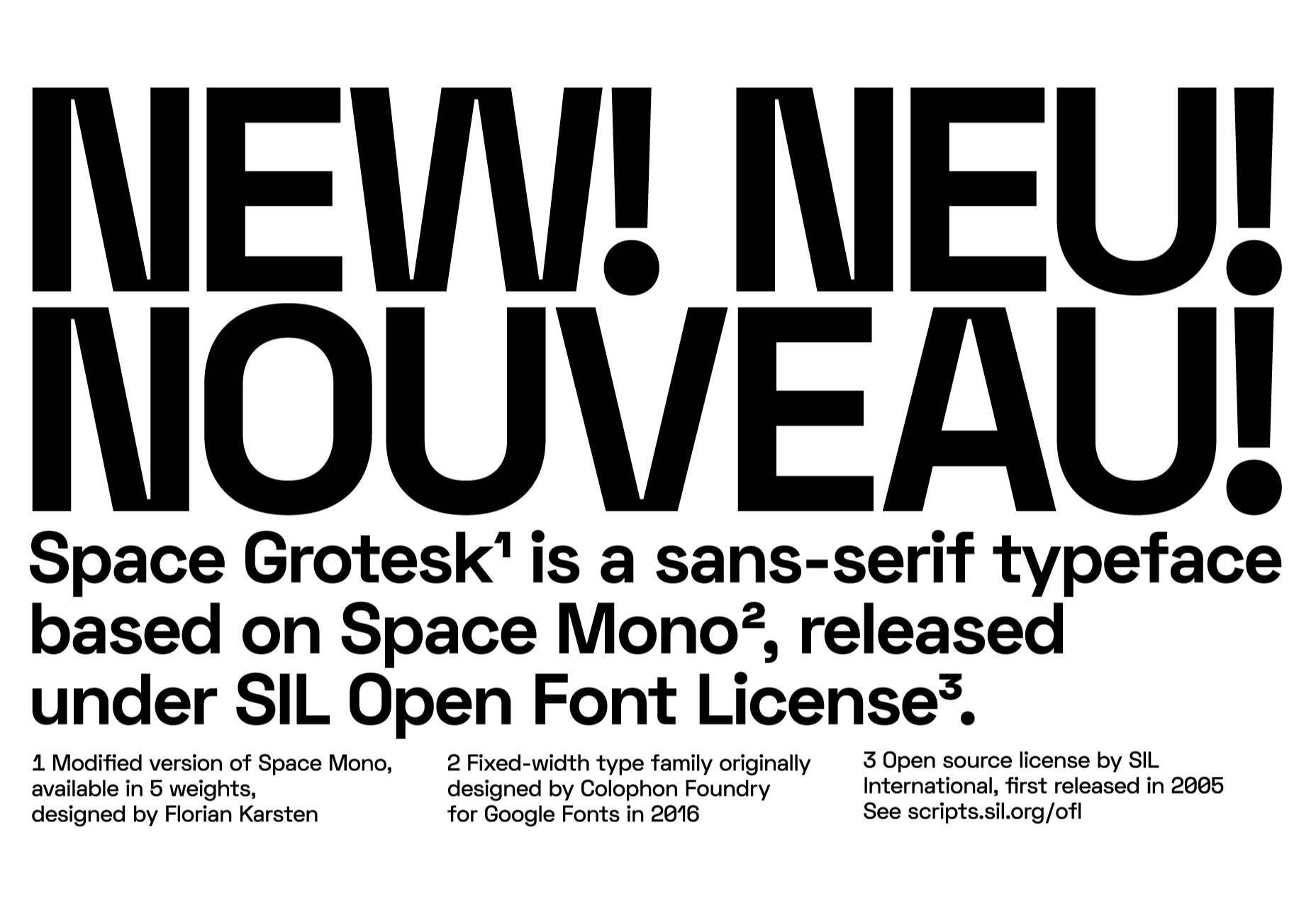
Alice
Alice offers a charming serif option described as traditional, quaint, and perfect for projects that command a sense of sophistication. While it’s limited to a single weight, Alice’s availability on Google Fonts magnifies its accessibility.
Urbanist
Urbanist presents itself as a versatile, geometric sans-serif with roots in Modernist design. Crafted from basic shapes, it epitomizes neutrality, allowing it to function seamlessly over a spectrum of applications. Should you be considering a replacement for the premium Sofia font, Urbanist is a strong contender.
Evolventa
Evolventa, a Cyrillic offshoot of the URW Gothic L font family, stands out with its geometric design. While it has a smaller family size, it is often chosen for web headlines and eye-catching titles.
Fira Sans
Fira Sans comes from the creators of Firefox and has been generously contributed to the open-source community. Serving as Firefox’s go-to browser font and used throughout their website, it’s optimized for reading clarity on screens. Google Fonts also offers Fira Sans.
Hack
For building a developer’s site or finding the perfect code-styling typeface, Hack should be on the top of your list. It’s especially lightweight, packed with symbols and ligatures, and specifically crafted for coding. Hack even offers a straightforward Windows installation process.
IBM Plex
Plex, from the renowned tech company IBM, is favoured for its comprehensive family, including Mono, Sans, Serif, and Condensed. It’s multi-lingual and ideal for global website designs. And of course, Plex is entirely open-source.
Monoid
For those who write code, Monoid stands out with its integration of font-awesome, dubbed Monoisome. This feature allows the inclusion of icons within code, simplifying the process. Apart from coding, Monoid is highly legible for standard web text as well.
Object Sans
Object Sans (originally known as Objectivity) is a compelling geometric typeface fit to stand in for numerous premium fonts. It marries the best traits of Swiss neo-grotesks with geometric shapes. Object Sans is as versatile in large headers as it is in body text.
Lunchtype
Lunchtype emerged from an intriguing 100-day design project carried out during lunch breaks. If you’re in search of something more lively than vanilla Helvetica for your endeavor, Lunchtype might just be your type, offering an array of weights and a condensed style for a full typographic menu.
Jost
Drawing inspiration from 1920s German sans-serifs, Jost has earned its stripes in the open-source font world. For those seeking a Futura alternative, Jost offers variable weights and extensive language support, capturing attention with a modern twist on a classic style.
Work Sans
Work Sans is a distinctive grotesk sans with certain quirks that set it apart. The font’s variable weight options and multilingual capabilities ensure it shines on both screens and print.